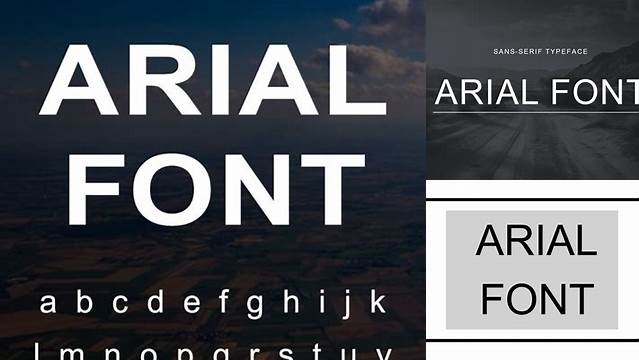
Hey guys! Ever wondered where to snag that classic, clean Arial font for your projects? Well, you’ve landed in the right spot. We’re diving deep into everything Arial, from its origins to where you can download it for free and even use it commercially without any headaches. Let’s get started!
Arial Font: A Brief History
Arial, that super familiar sans-serif typeface, has been around for quite a while, making its mark on countless documents, websites, and designs. Originally created by Robin Nicholas and Patricia Saunders in 1982, it was intended to be a cost-effective alternative to Helvetica. You know, that other super popular font that everyone loves? Arial was designed to be metrically identical to Helvetica, meaning it could be used in existing documents without needing to adjust the layout. Pretty neat, huh?
The Design and Characteristics of Arial
Arial is known for its clean lines and neutral appearance. It’s highly legible, which makes it a great choice for body text as well as headlines. Some of its distinguishing features include its slightly more rounded terminals compared to Helvetica, and the more angled cut on the lowercase ‘t’. These subtle differences give Arial a slightly softer, more contemporary feel. It's these little tweaks that make it so versatile.
Arial vs. Helvetica: What's the Difference?
Okay, let's get this straight once and for all. Arial and Helvetica are often mistaken for each other, and for good reason: they look incredibly similar. But there are some key differences if you know what to look for. As we mentioned, Arial has slightly more rounded terminals, giving it a softer appearance. The angle of the cut on the lowercase ‘t’ is also different. Helvetica tends to have a more uniform stroke weight, while Arial can vary slightly. Ultimately, the choice between Arial and Helvetica often comes down to personal preference. But knowing the differences can help you make a more informed decision for your design projects.
Why Choose Arial for Your Projects?
So, why should you even bother using Arial when there are thousands of other fonts out there? Well, for starters, Arial is incredibly versatile. It works well in a variety of contexts, from formal documents to website headers. It's also highly legible, which is super important for ensuring that your message gets across clearly. Plus, Arial is a system font, meaning it comes pre-installed on most computers. This makes it a safe bet for ensuring that your designs will display correctly across different devices and platforms. In short, Arial is a reliable, go-to font that you can always count on.
Arial Alternatives: Exploring Similar Fonts
While Arial is a fantastic font, it’s always good to have some alternatives in your back pocket. If you’re looking for something similar but with a slightly different feel, there are several great options to consider. These alternatives can give your designs a fresh look while still maintaining the clean, legible qualities that make Arial so appealing.
Helvetica: The Classic Choice
We’ve mentioned Helvetica a few times already, and for good reason: it’s one of the most popular and widely used fonts in the world. Helvetica is known for its clean, modern look and its versatility. While it’s similar to Arial, it has a more uniform stroke weight and a slightly more refined appearance. If you’re looking for a classic sans-serif font, Helvetica is a great choice.
Conclusion: Arial, Your Go-To Font
So there you have it, guys! Everything you need to know about Arial font, from its history and design to where you can download it for free and how to use it in your projects. Arial is a versatile and reliable font that’s perfect for a wide range of uses. Whether you’re designing a website, creating marketing materials, or formatting a document, Arial is a font you can always count on. Happy designing!